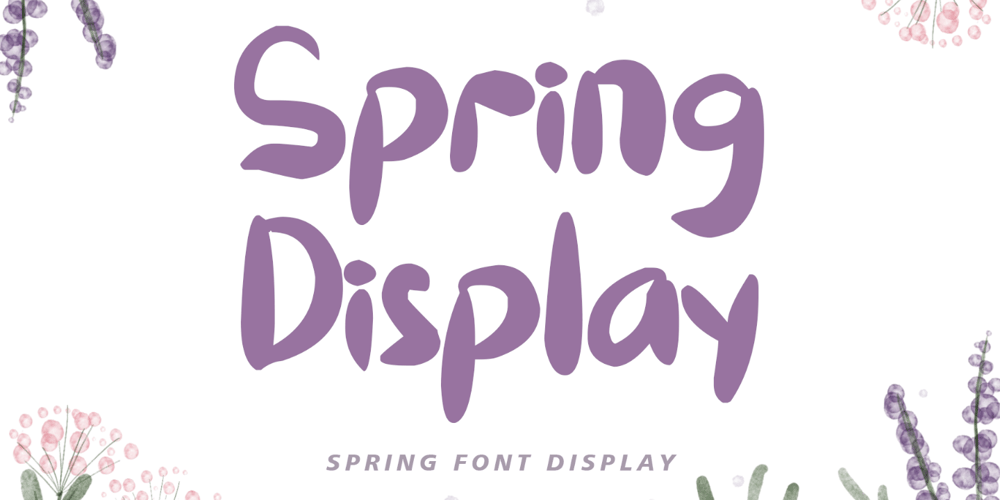
Spring Display
Spring Display font
Spring Display Font Family was designed by Isroni Yoga Prasetya and published by Yoga Letter. Spring Display contains 1 styles and family package options. “Spring Display” is a cute and unique display font. This font is equipped with uppercase, lowercase, numerals, punctuations, and multilingual support. This font is perfect for Easter, summer, winter, holidays, spring, back to school, mother’s day, and more.